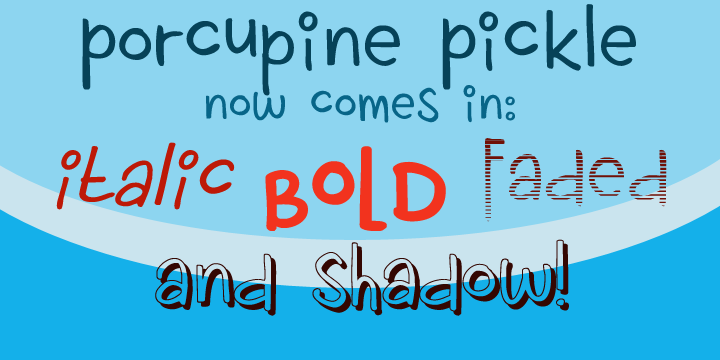
Porcupine Pickle - a weird font with a weird name. It is loose, it is girly, it is fun. It has an uneven baseline, yet is very easy to read.
It comes with all the accents. Yay!